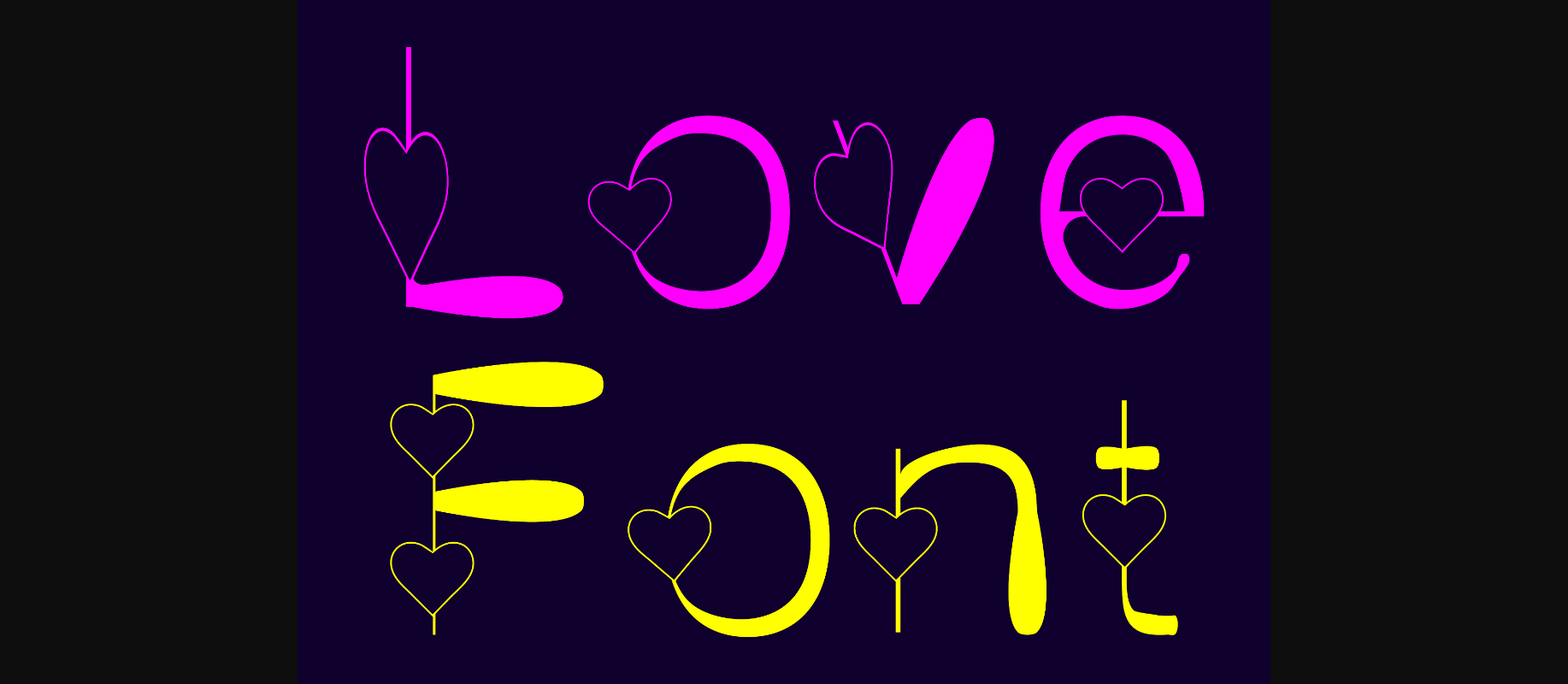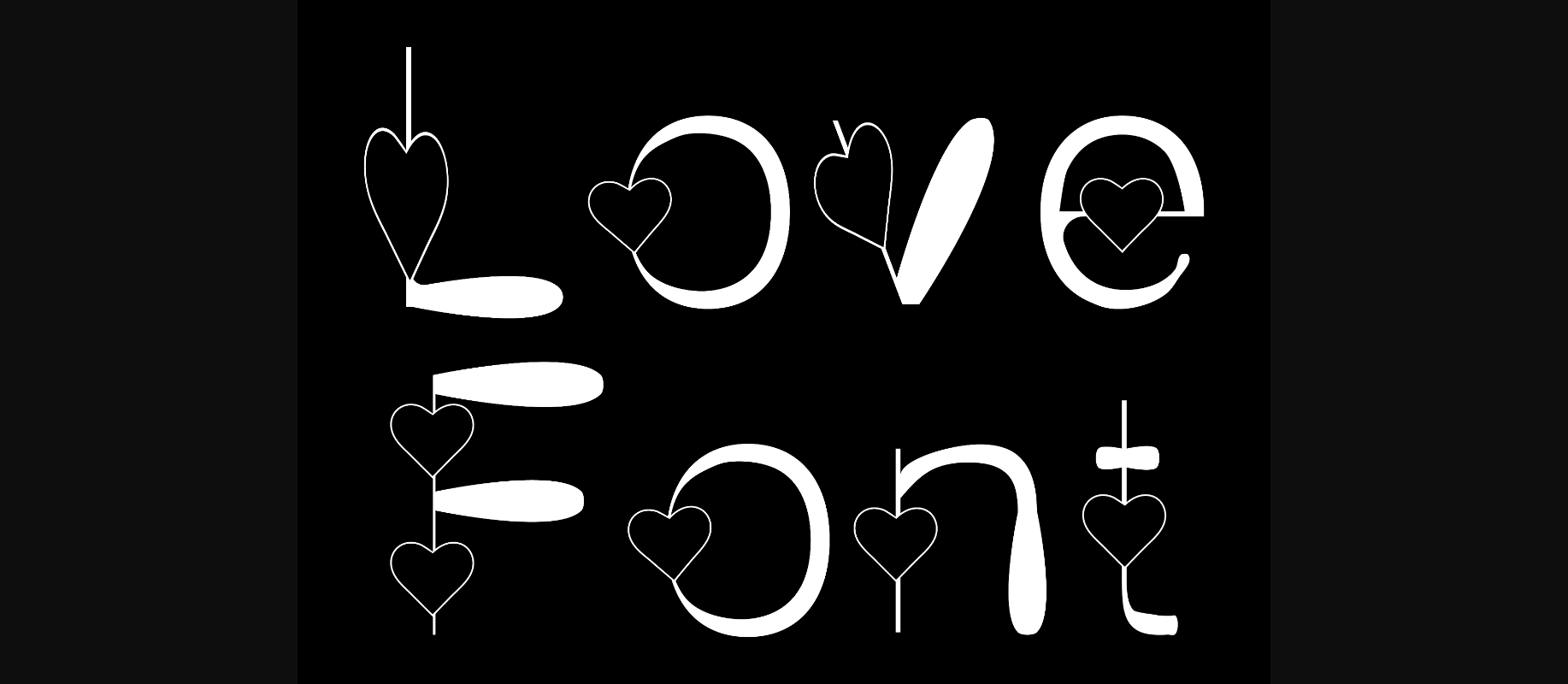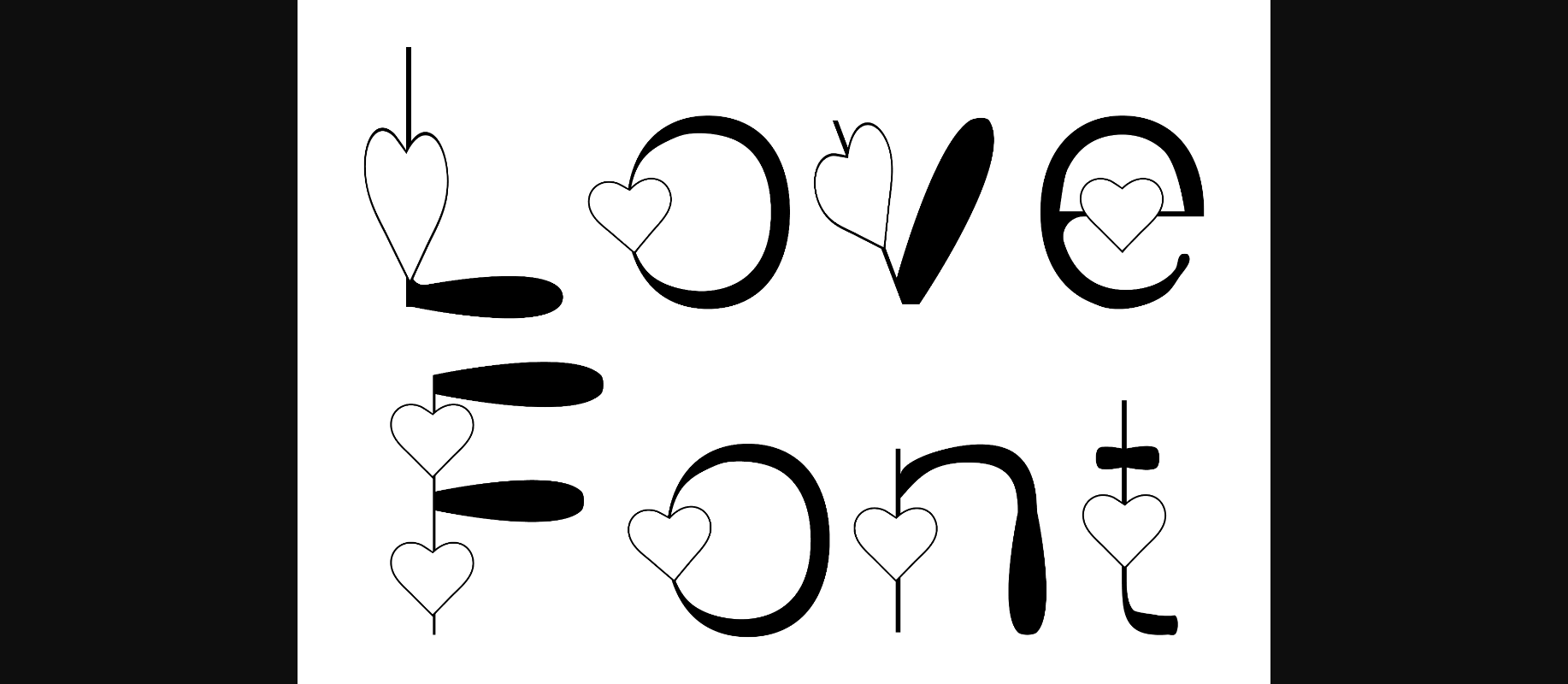
Love Font
About Love Font
Love Font is a beautiful font that combines unique letters with a perfect heart embellishment. You can use it as a header typeface or even as a quote to inspire your customers and their goals (t-shirts, prints, billboards, posters,) and more.